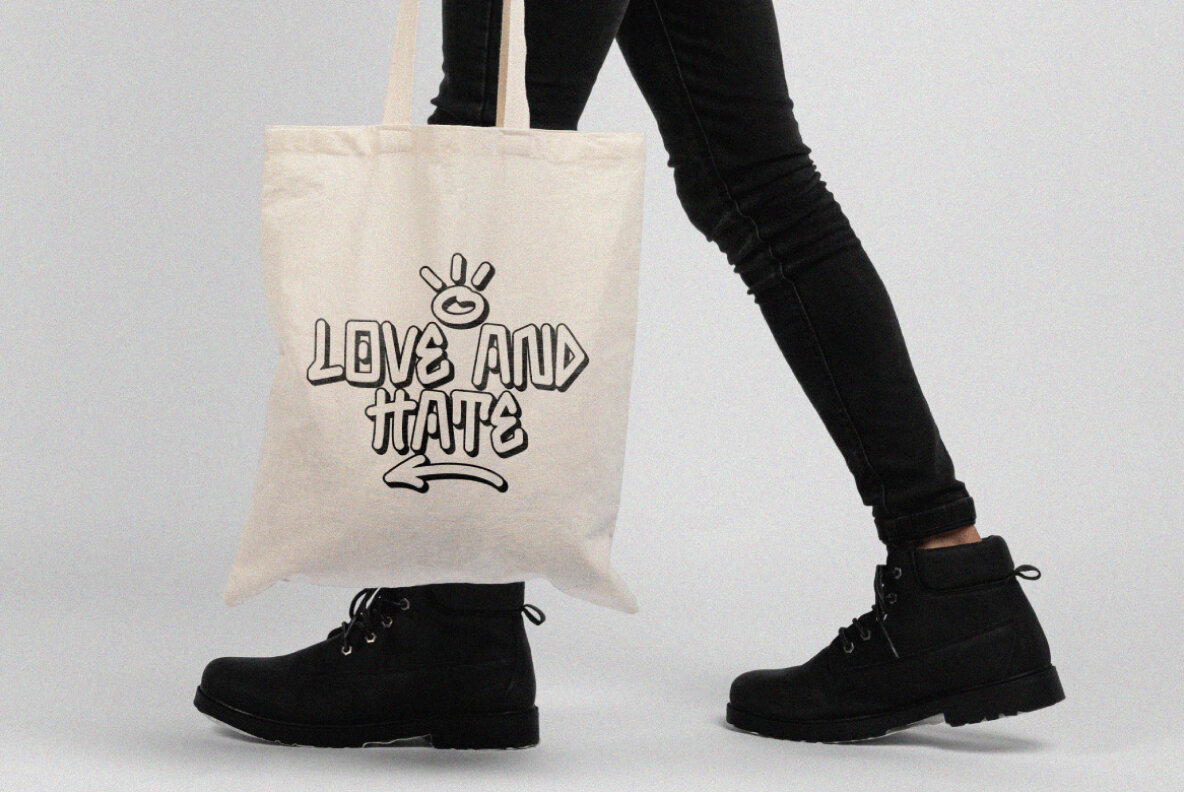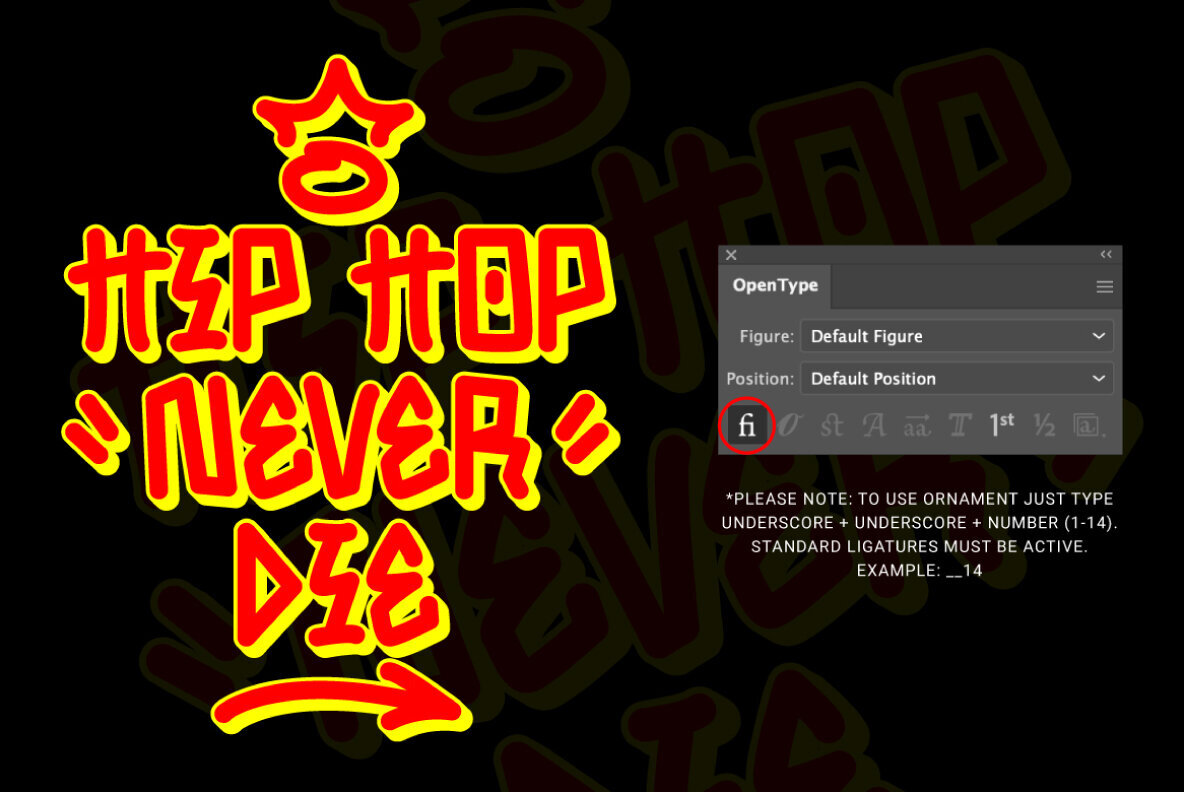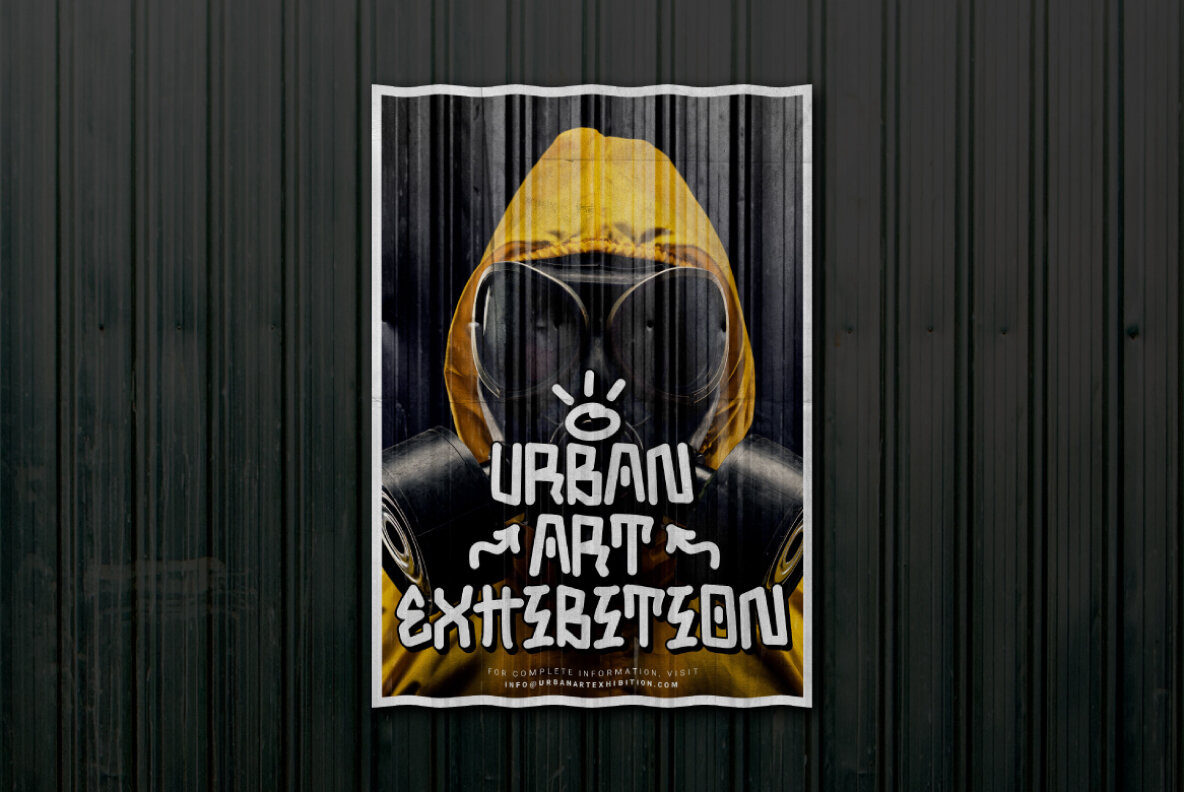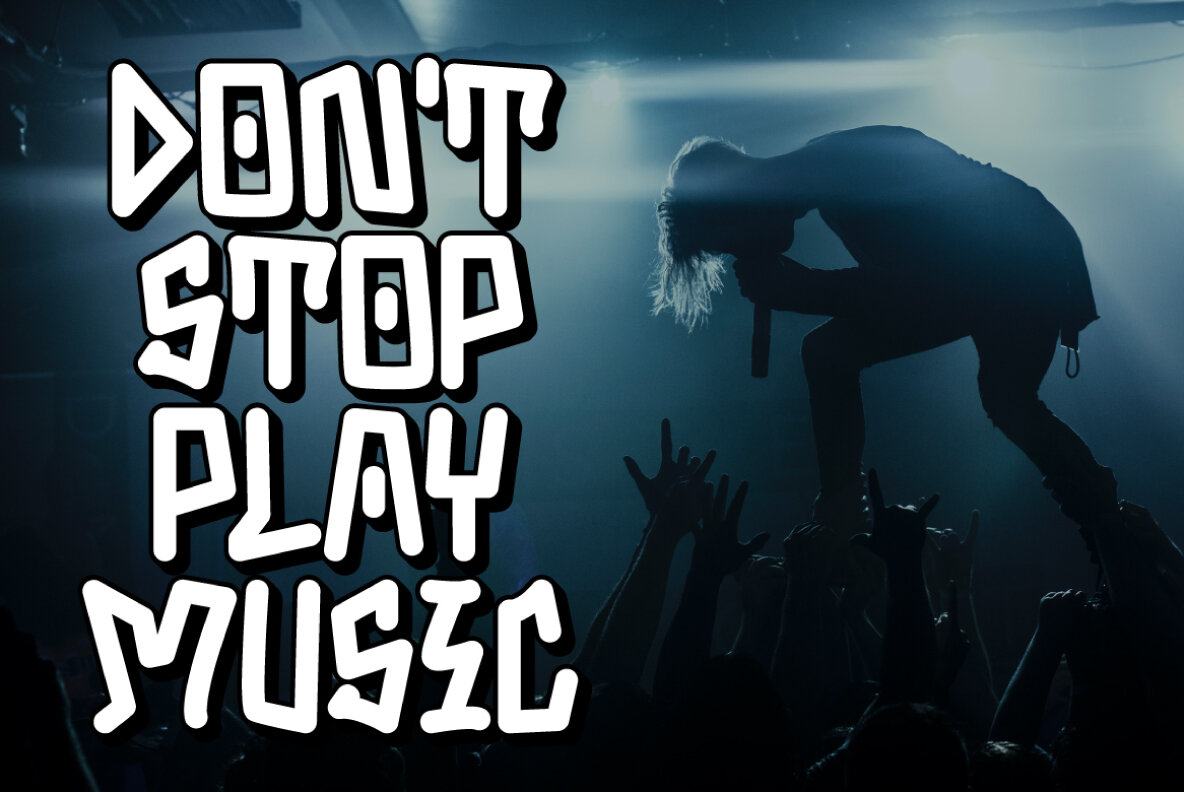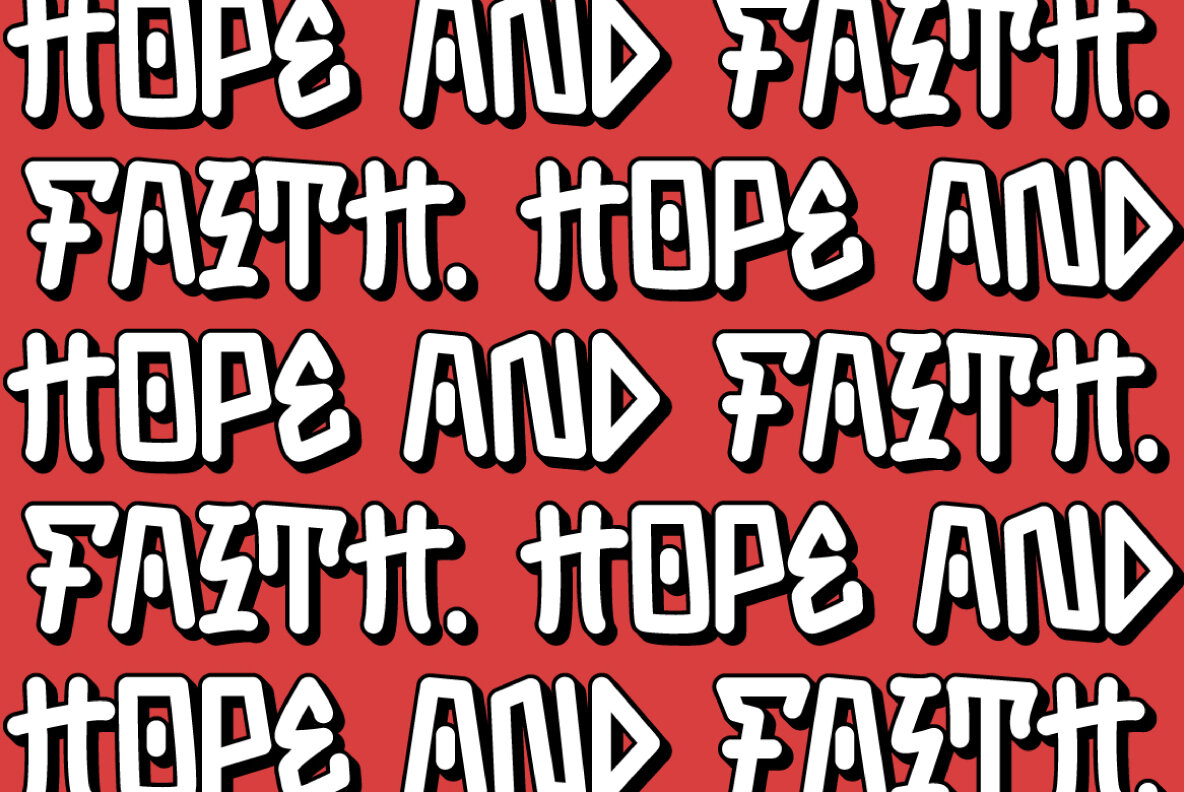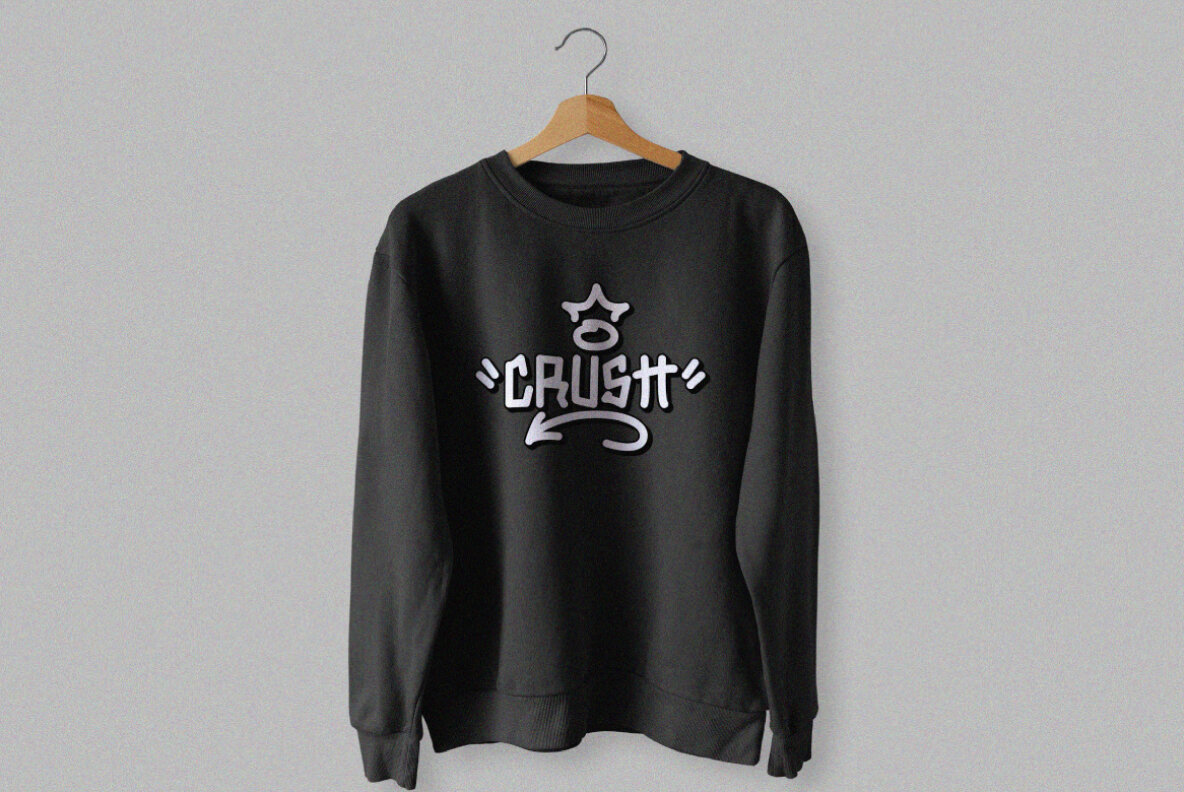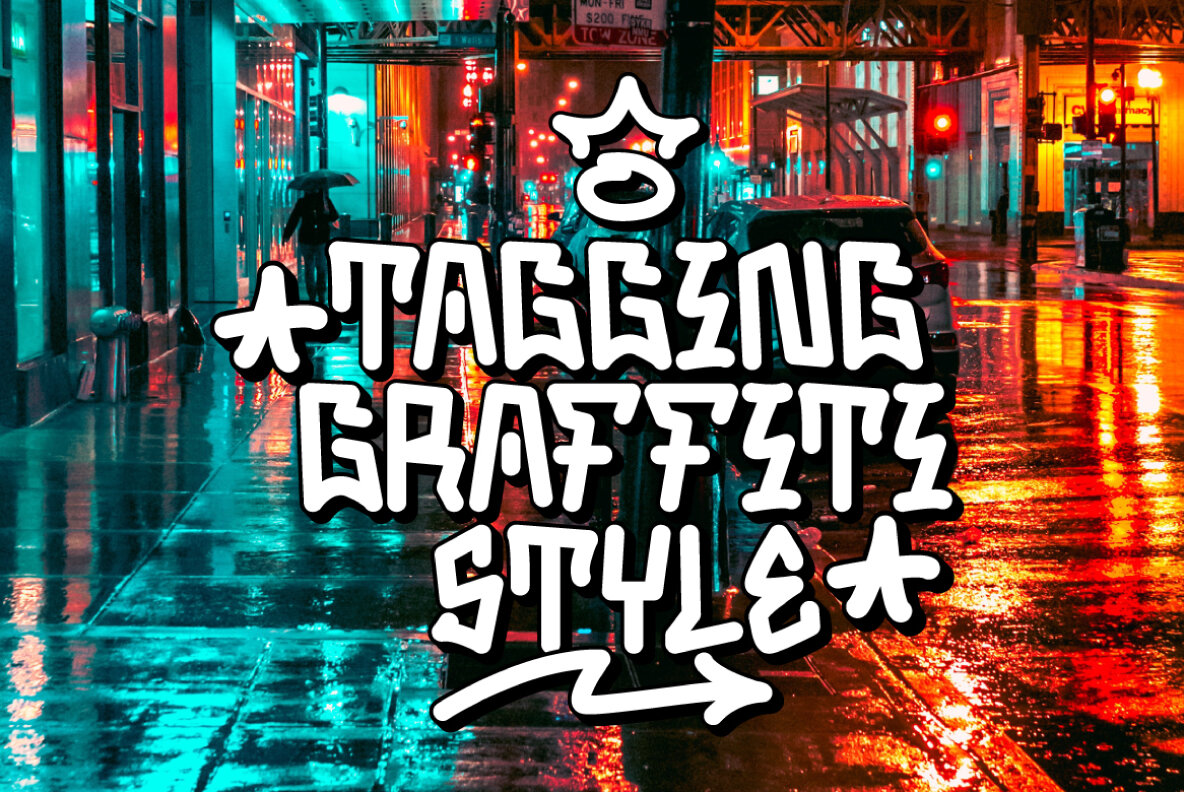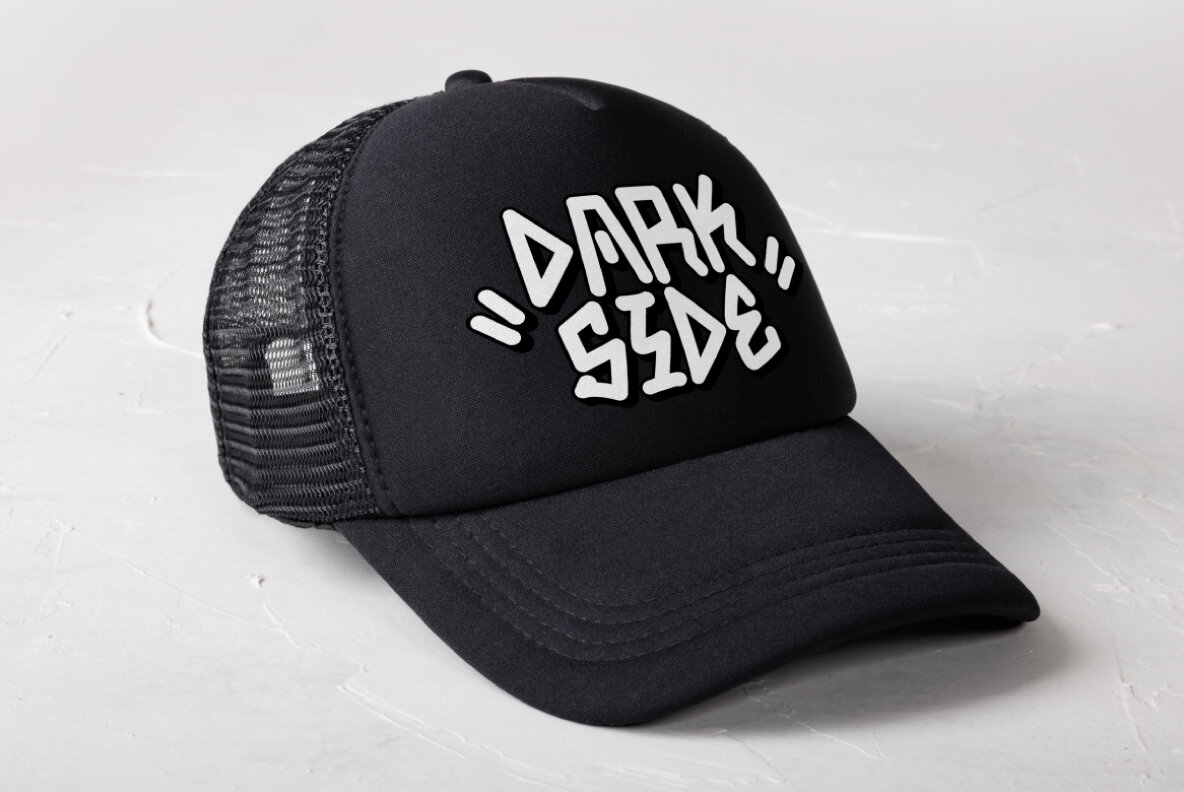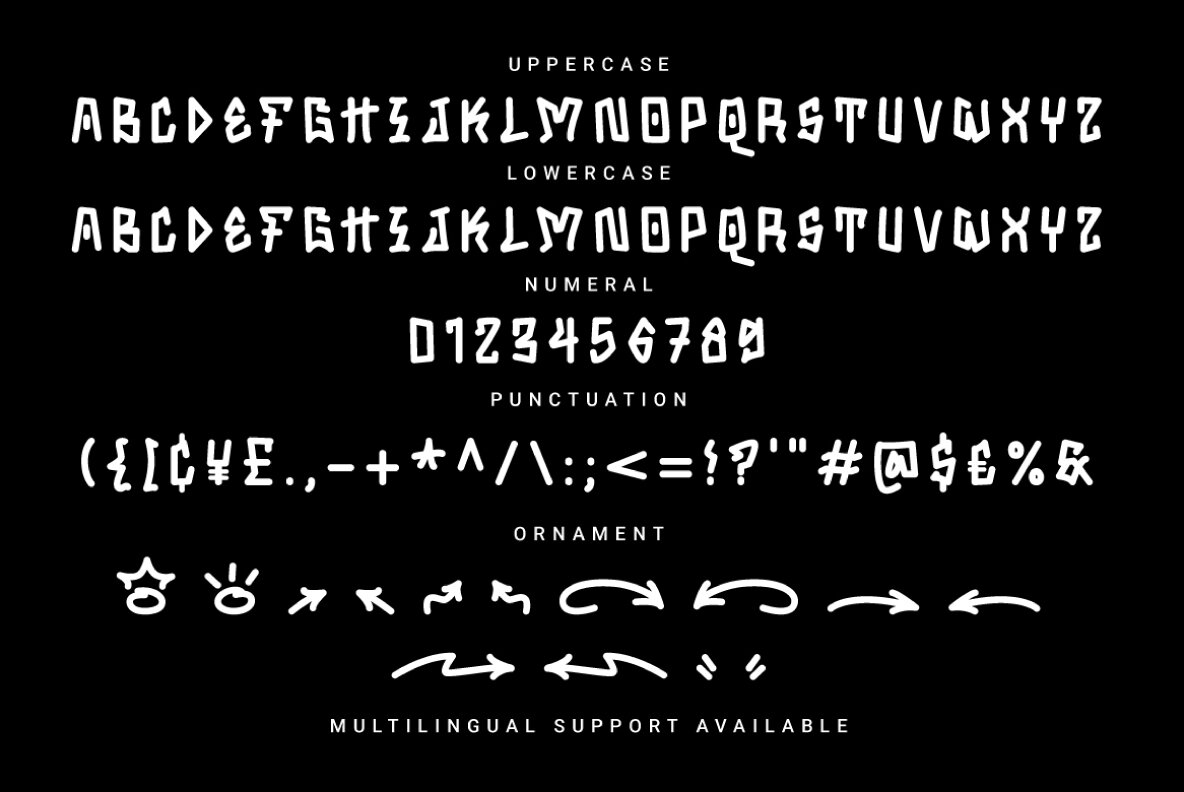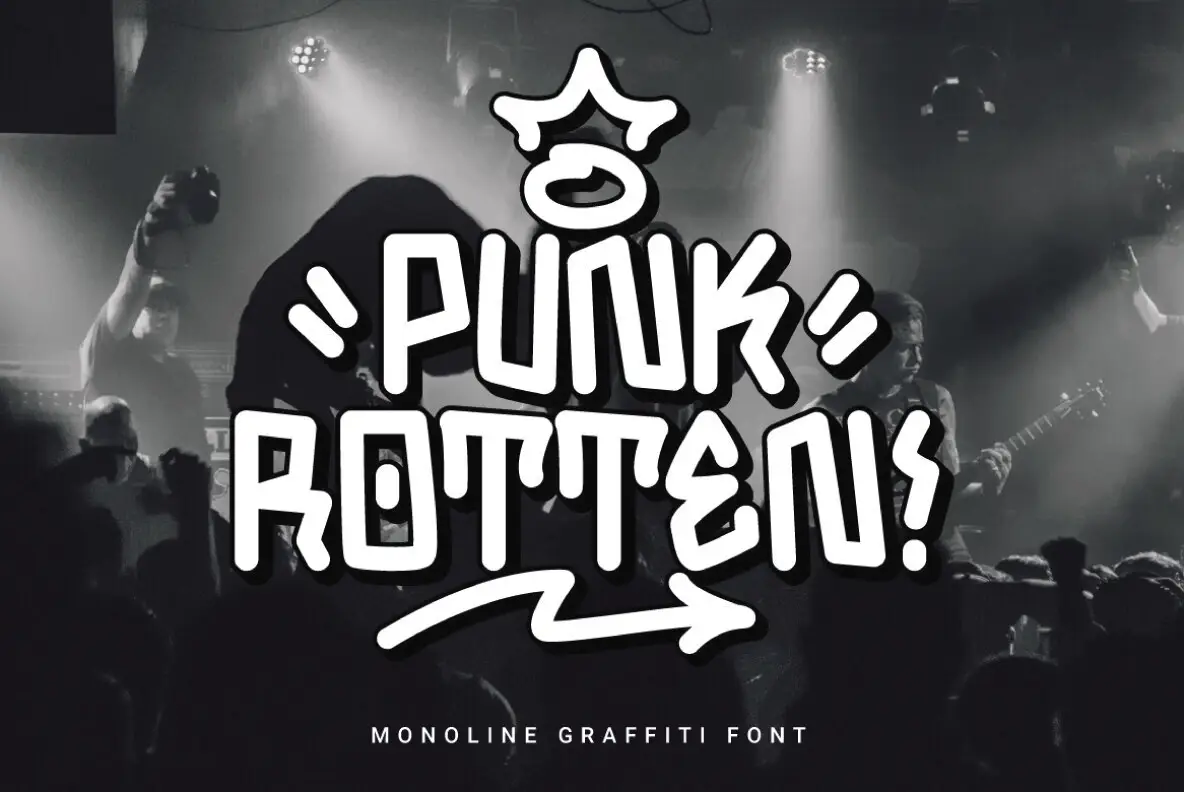
Punk Rotten Font
Punk Rotten is an edgy graffiti-style font that embodies the limitless spirit of street art. Designed for those looking to inject a playful and urban tagging aesthetic into their work, it comes with unique ornaments to enhance its appeal. These ornaments can be accessed by typing an underscore, followed by an underscore and a number (1-14), provided your program supports the OpenType feature or includes a glyph panel. This font is ideal for embellishing merchandise designs, posters, stickers, and album covers.
Key features of Punk Rotten include uppercase and lowercase characters, numerals, punctuation, multilingual support, and an array of decorative ornaments. The extensive multilingual compatibility ensures accessibility for a wide range of languages, including but not limited to Afrikaans, Danish, French, German, Portuguese, Spanish, and Zulu. This makes Punk Rotten not only versatile but also a valuable tool for designers working across various linguistic platforms.